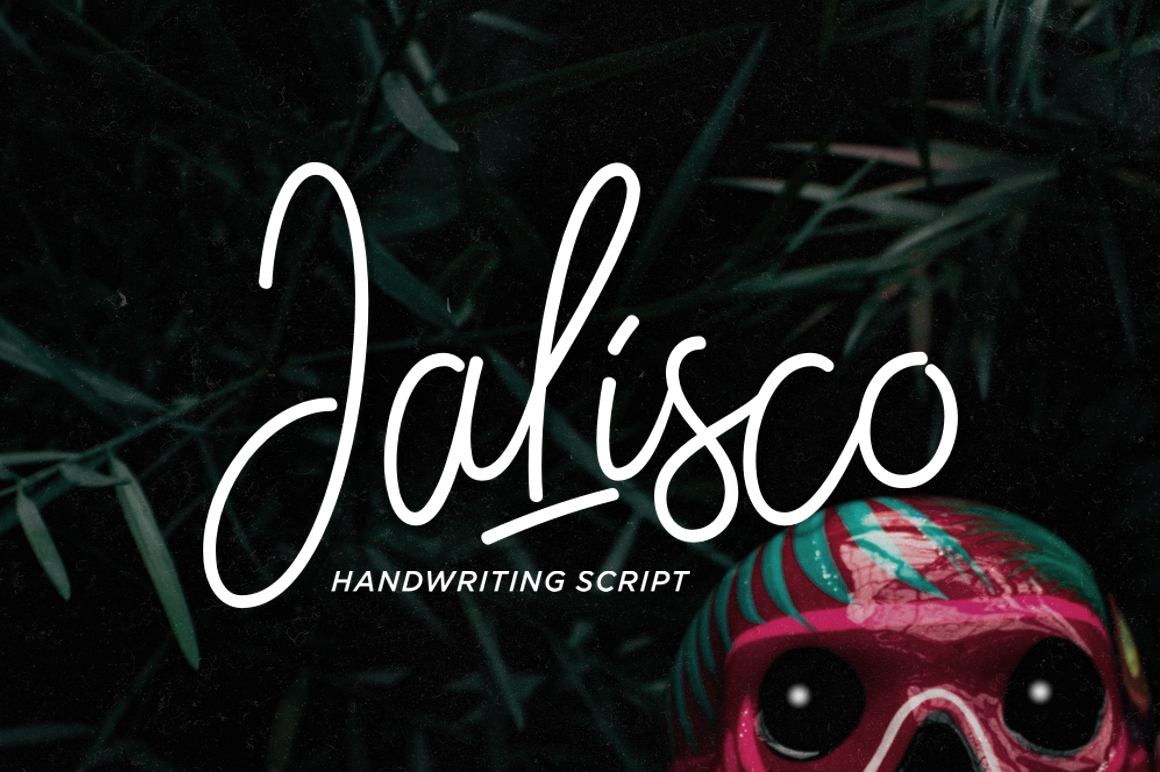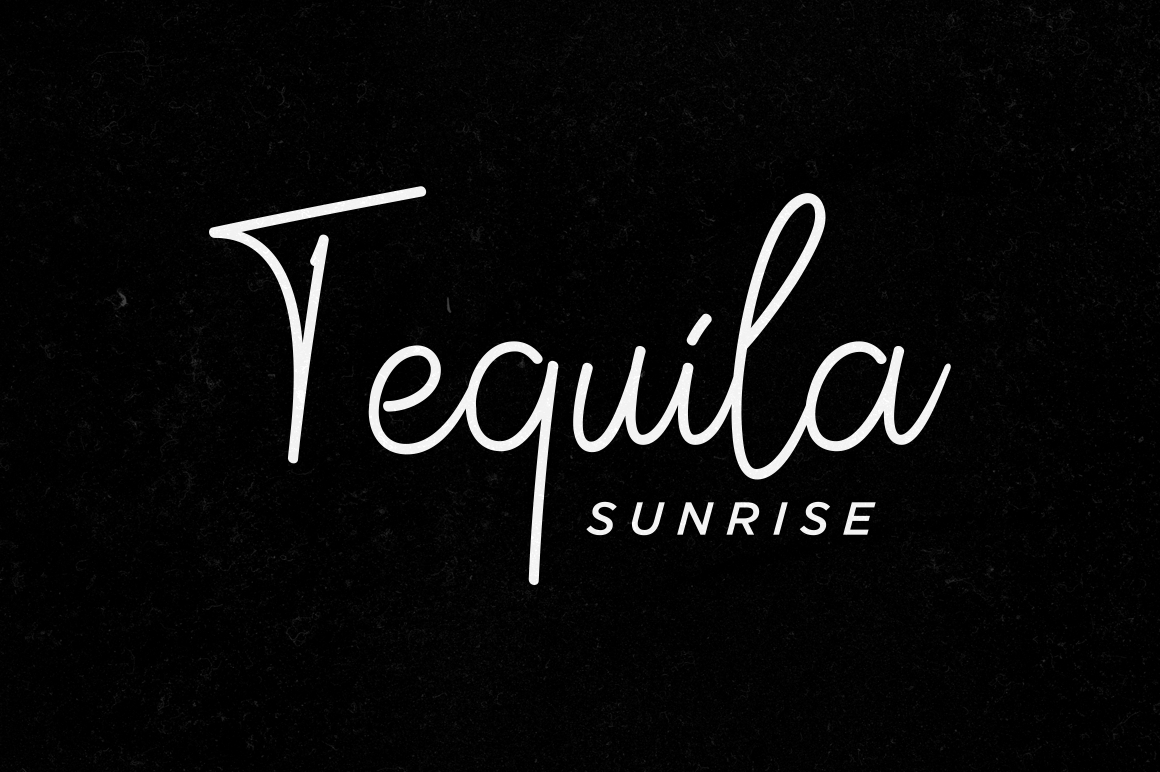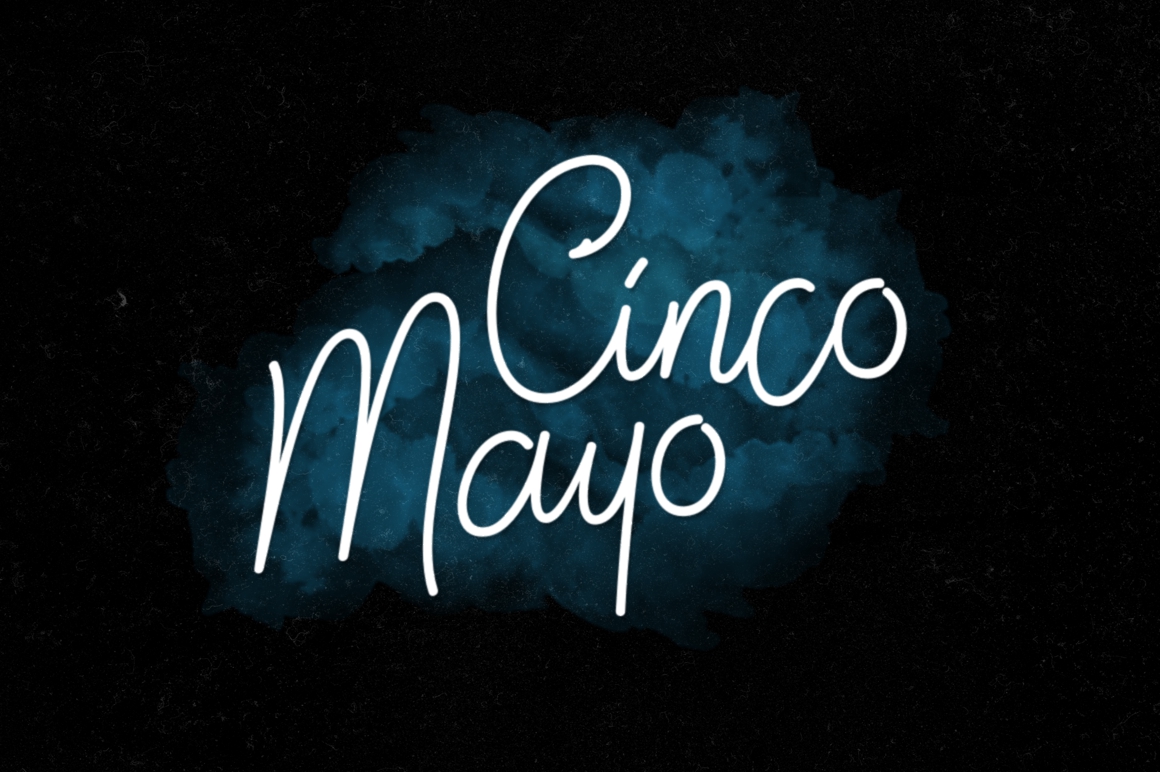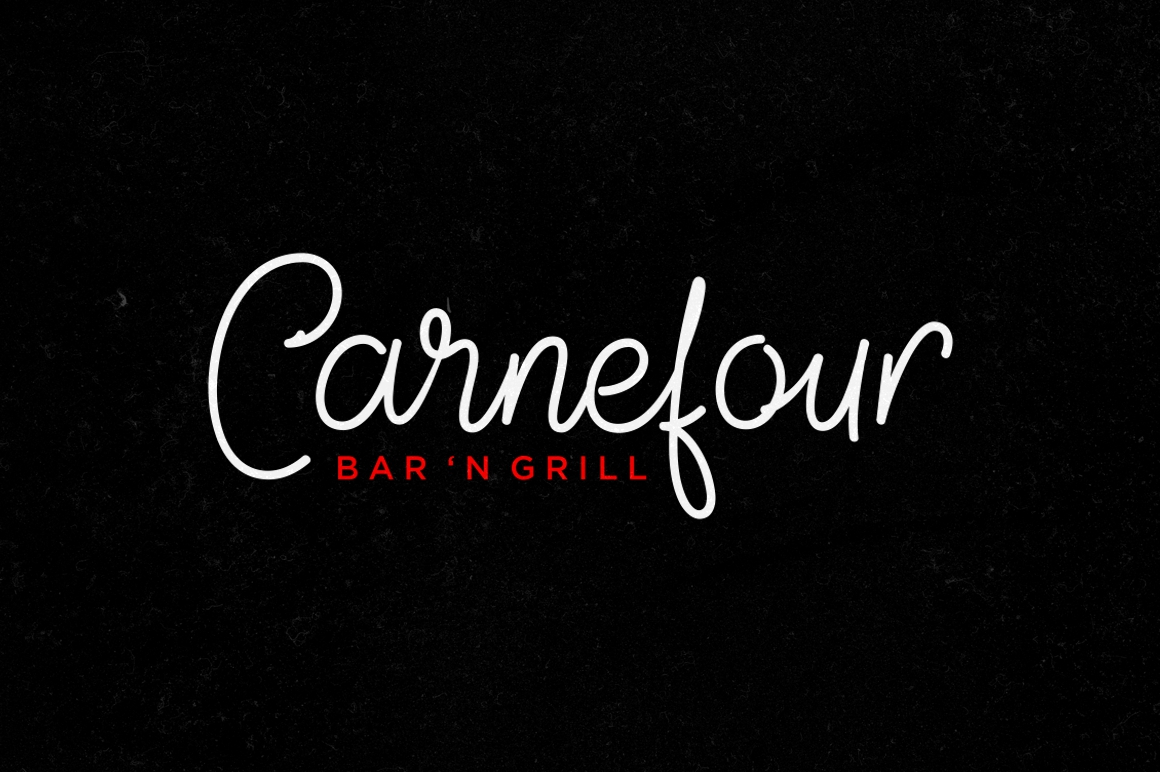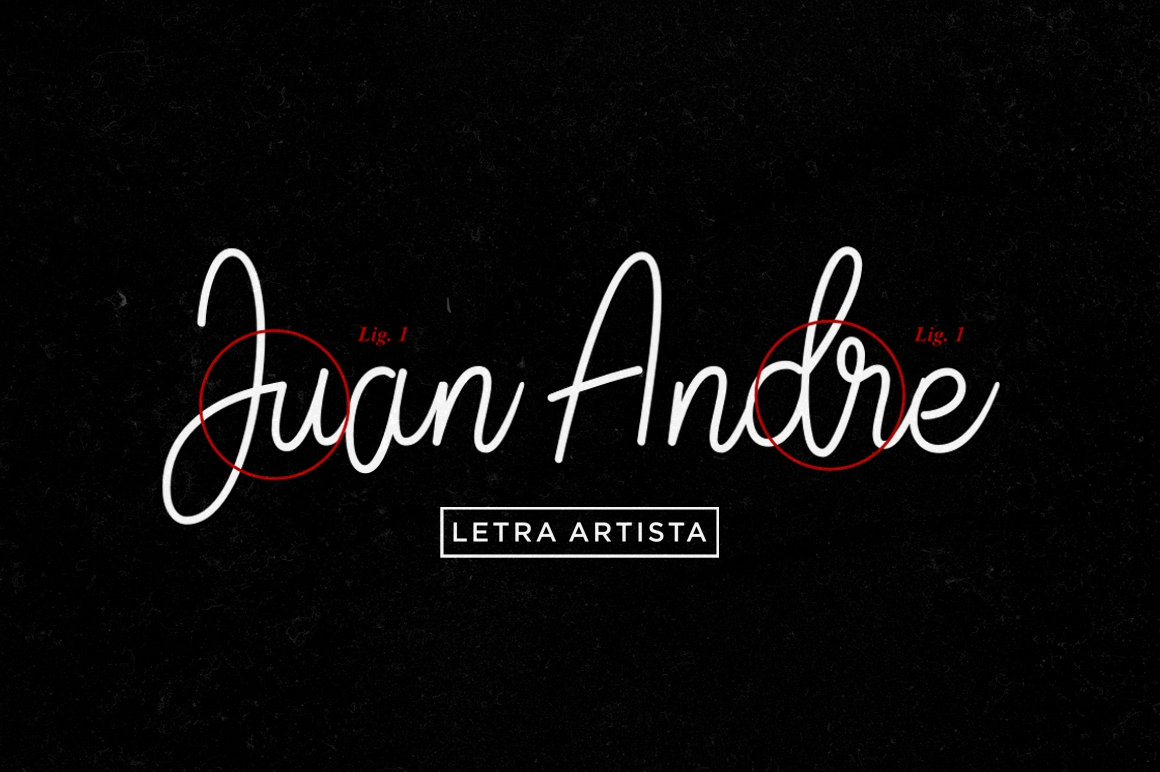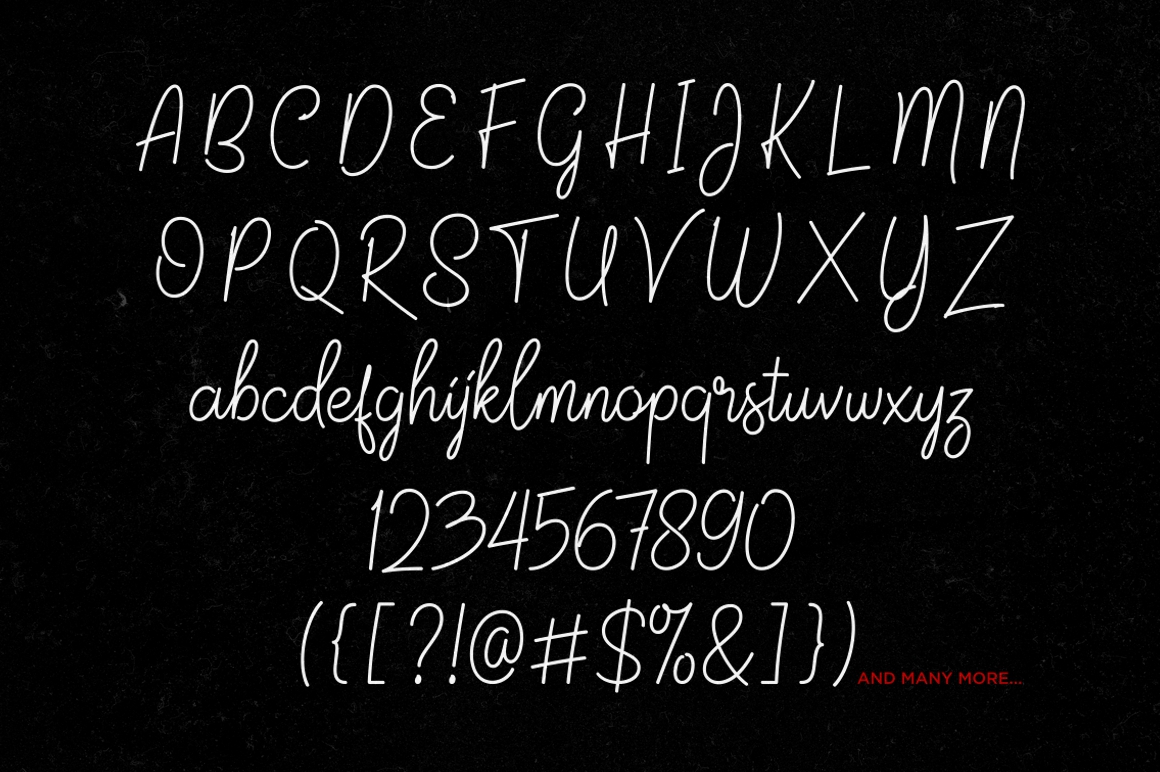
Jalisco Font
About Jalisco Font
Dale gas con Jalisco, a fun and summery handwritten font! This energetic and relaxed calligraphy font is a great way to engage your designs, and has a quality branded appeal for a wide range of designs and projects.